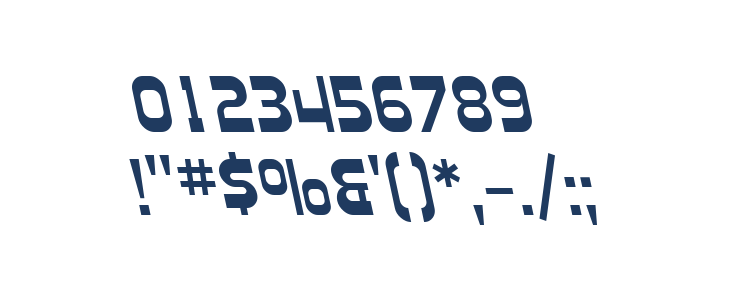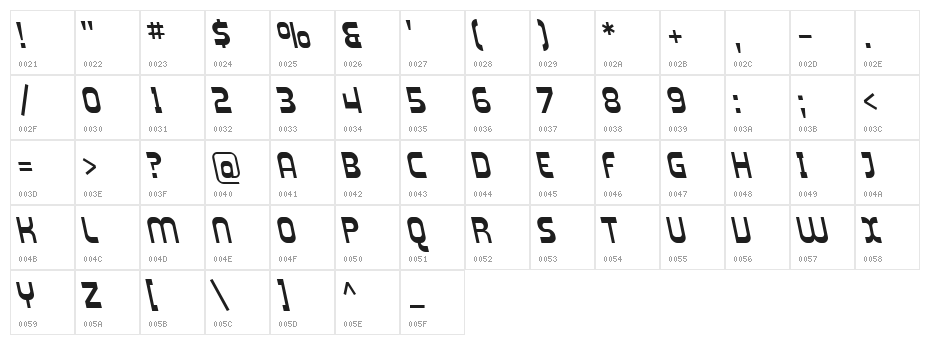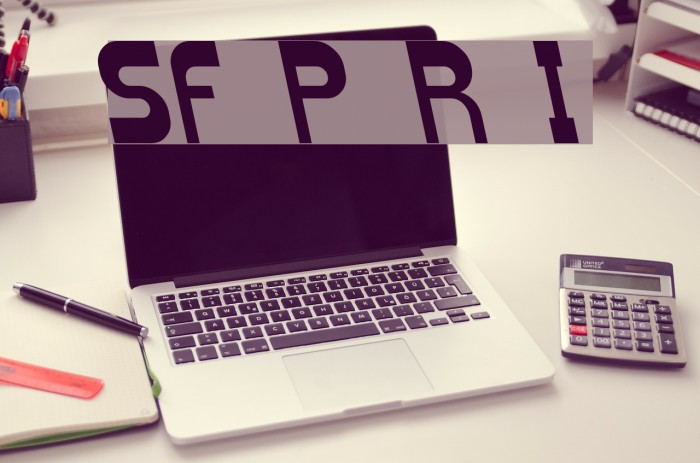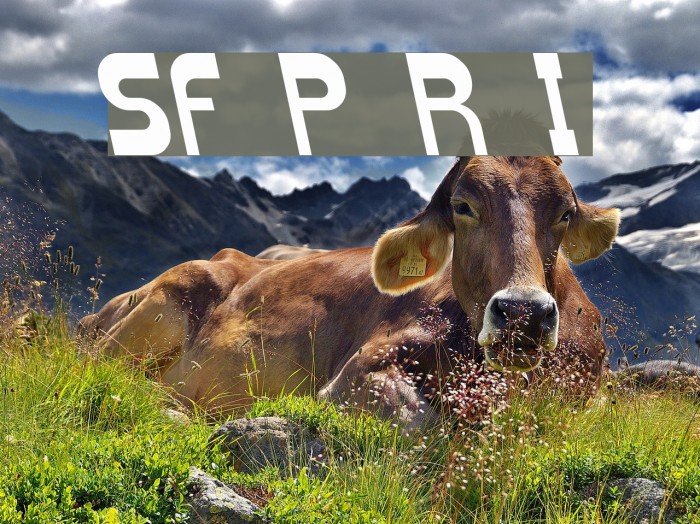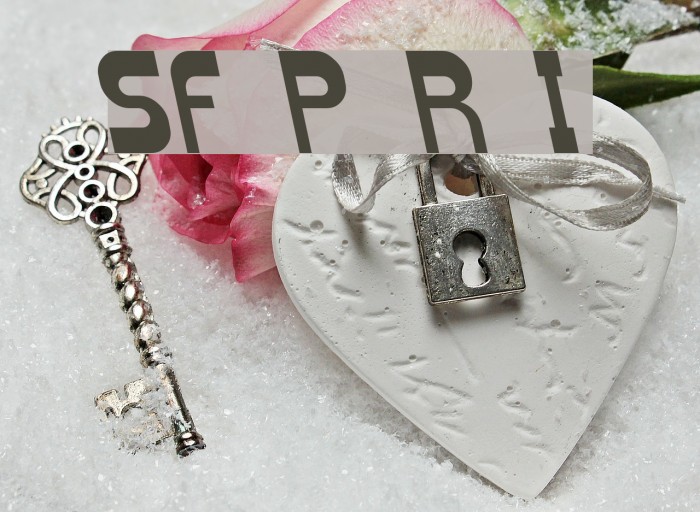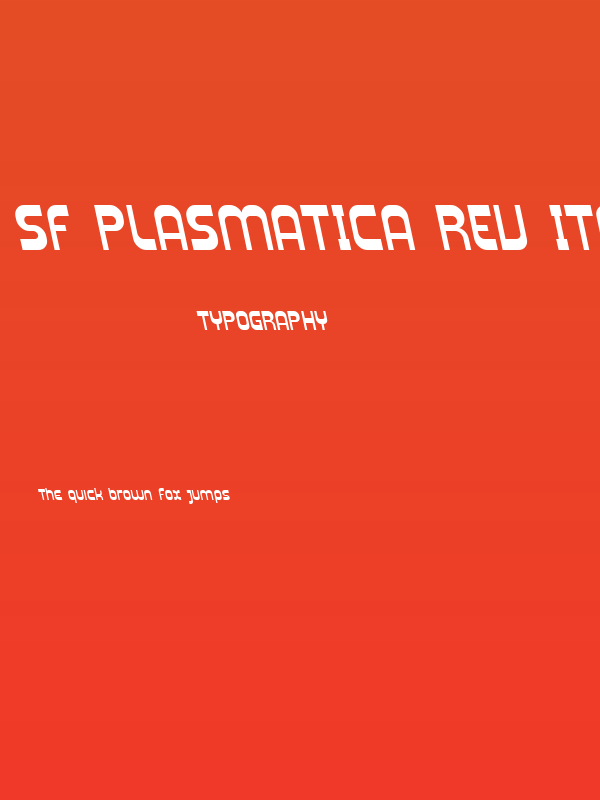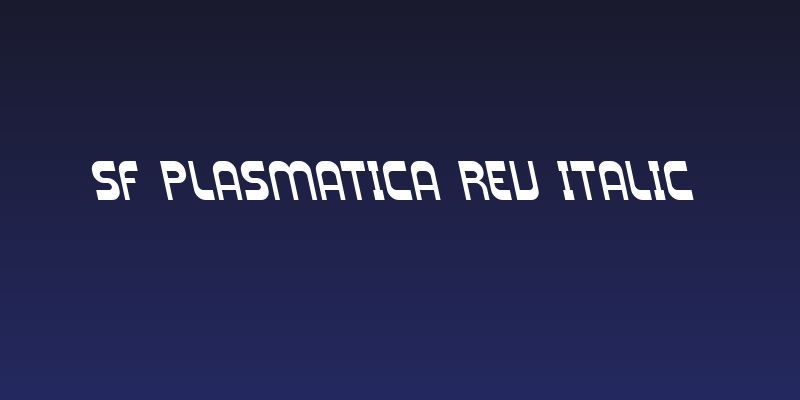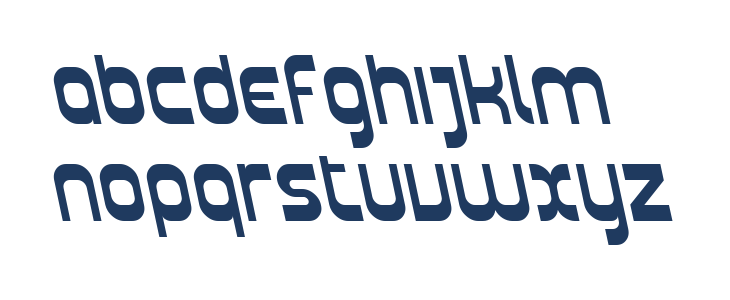
SF Plasmatica Rev Italic Font
SF Plasmatica Rev Italic Description
This font features a futuristic and angular design with a distinct italic slant, giving it a dynamic and forward-moving appearance. The characters are bold and geometric, with sharp edges and a consistent stroke width that conveys a sense of modernity and technology. The uppercase and lowercase letters maintain a uniform style, while the numerals and special characters integrate seamlessly, enhancing the font's cohesive look. The overall design is clean and uncluttered, making it suitable for projects that require a contemporary and innovative aesthetic.
| Proposed Projects | Ideal for tech branding, sci-fi themed designs, video game interfaces, and modern advertising. |